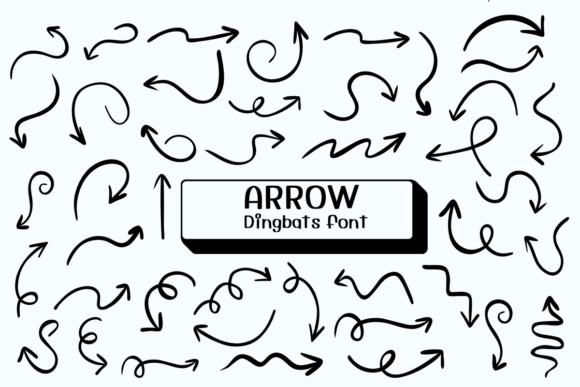
Arrow Font: Elevate Your Creative Projects with a Unique Dingbats Font
Are you looking for a font that can add a touch of creativity and uniqueness to your projects? Look no further than the Arrow font. This dingbats font features an abstract style that can enhance a wide range of creative projects, from wedding invitations to DIY crafts, decorations, logos, and more.
What is Arrow Font?
Arrow font is a type of dingbats font, which is a category of fonts that feature symbols, shapes, and icons rather than traditional letters and numbers. The Arrow font is characterized by its abstract style, which features arrow-shaped symbols and motifs.
The font is designed to be versatile and can be used in a variety of creative projects. Whether you’re looking to add a touch of whimsy to your wedding invitations or create a unique logo for your business, the Arrow font is a great choice.
Creative Ways to Use Arrow Font
The Arrow font is a versatile font that can be used in a wide range of creative projects. Here are some ideas to get you started:
- Wedding Invitations: Add a touch of elegance and sophistication to your wedding invitations with the Arrow font. You can use the font to create custom arrow-shaped icons, borders, and other design elements.
- DIY Crafts: The Arrow font is perfect for DIY craft projects, such as scrapbooking, card making, and other paper crafts. You can use the font to create custom titles, headings, and other design elements.
- Decorations: Use the Arrow font to create custom decorations, such as garlands, banners, and other signage. The font’s abstract style makes it perfect for creating unique and eye-catching decorations.
- Logos: The Arrow font is a great choice for creating unique and memorable logos. You can use the font to create custom arrow-shaped logos that reflect your brand’s personality and style.
Benefits of Using Arrow Font
The Arrow font offers a range of benefits, including:
- Unique and Creative: The Arrow font is a unique and creative font that can add a touch of personality to your projects.
- Versatile: The font is versatile and can be used in a wide range of creative projects, from wedding invitations to logos.
- Customizable: You can customize the font to fit your needs, including changing the color, size, and style.
Tips for Using Arrow Font
Here are some tips for using the Arrow font:
- Use it Sparingly: While the Arrow font is a unique and creative font, it can be overwhelming if used too much. Use it sparingly to add a touch of personality to your projects.
- Experiment with Colors: The Arrow font looks great in a range of colors. Experiment with different colors to find the one that works best for your project.
- Pair it with Other Fonts: The Arrow font can be paired with other fonts to create a unique and interesting design. Experiment with different font combinations to find the one that works best for your project.
Arrow Font Inspiration
If you’re looking for inspiration for your projects, here are some ideas that feature the Arrow font:
- Wedding Invitations: Create custom wedding invitations that feature the Arrow font. You can use the font to create custom arrow-shaped icons, borders, and other design elements.
- DIY Crafts: Use the Arrow font to create custom DIY crafts, such as scrapbooking, card making, and other paper crafts.
- Decorations: Create custom decorations, such as garlands, banners, and other signage, that feature the Arrow font.
The Arrow font is a unique and creative font that can add a touch of personality to your projects. With its abstract style and versatile design, it’s perfect for a wide range of creative projects, from wedding invitations to logos. Whether you’re a designer, DIY enthusiast, or just looking for a unique font to add to your collection, the Arrow font is a great choice.